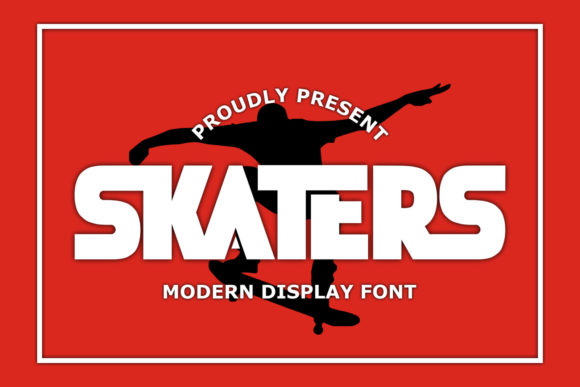
Introducing Skaters Font, the ultimate typeface for making an unforgettable impression!
Prepare to be mesmerized by this bold and chunky display font, meticulously crafted by the renowned Teguh Pranata. Skaters Font is not just another font; it's a work of art that will transform your designs into eye-catching masterpieces.
Picture this: you're designing a parade banner that needs to command attention from afar. Skaters Font steps into the spotlight, its chunky letters leaping off the page and grabbing everyone's gaze. The parade-goers will be spellbound by the playful yet commanding presence of your banner, making your message impossible to ignore.
But Skaters Font isn't just limited to parades. This versatile gem is perfect for any casual design project that demands a touch of whimsy and impact. Whether you're creating posters, flyers, social media graphics, or even logos, Skaters Font will add an instant dose of personality and flair.
Imagine your designs bursting with character, captivating your audience with every stroke of this remarkable font. With Skaters Font, you'll have the power to convey your message with a boldness that resonates and a charm that delights.
So why settle for ordinary when you can have extraordinary? Download Skaters Font today and unleash the full potential of your designs. Let the chunky letters of Skaters Font carry your message to new heights, leaving an unforgettable mark on the hearts and minds of your audience.